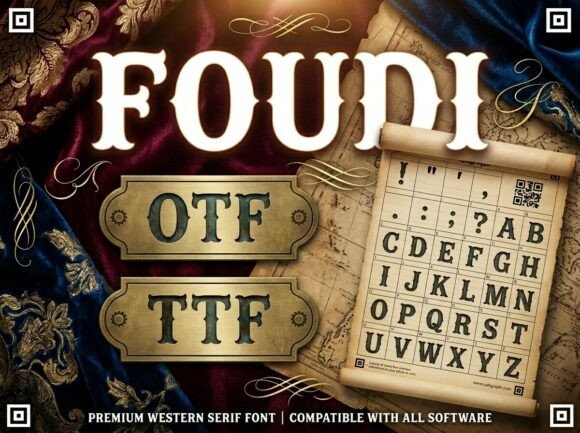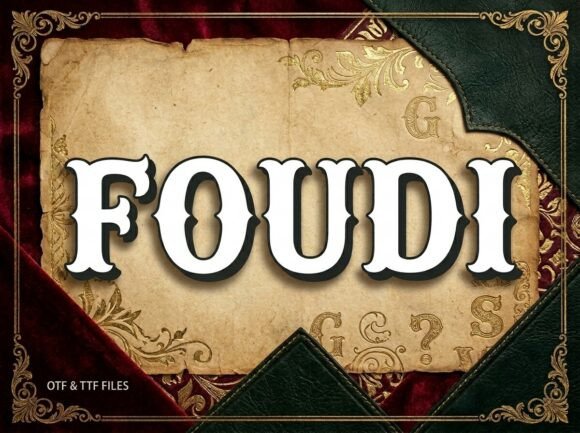
The Perfect Font to Make Your Designs Pop
Have you ever stared at a blank design canvas, feeling the pressure to create something truly unique and eye-catching? That’s where the magic happens, and the right font can be the spark that sets your creativity ablaze. For designers who crave that extra oomph, the Foudi Font is about to become your new best friend.
This stunning decorative display font is specifically designed to be the center of attention, with unique artistic elements and a strong visual personality that’s sure to turn heads. Whether you’re working on bold headlines, artistic logos, or creative packaging, the Foudi Font is the perfect addition to your design arsenal. Its versatility and professional finish make it a valuable asset for any designer looking to elevate their work and stand out from the crowd.
Foudi Font Key Features
- Font Family: Foudi Font is a typeface that comes in multiple weights, including Thin, Light, Regular, Medium, Bold, and Black.
- Character Count: Foudi Font has a large character set, including Latin, Cyrillic, and Greek alphabets, as well as various punctuation and symbol glyphs.
- Unique Characteristics: Foudi Font features a unique blend of modern and traditional design elements, with a distinctive flair and elegance that sets it apart from other typefaces.
Foudi Font Review
Overall, I think Foudi Font is a great addition to any designer’s toolkit. Here’s what I like and dislike about it:
- Unique Character Set: Foudi Font offers a distinct and modern character set that can add a touch of sophistication to any design.
- Highly Customizable: The font is fully editable, allowing you to adjust weights, styles, and even create custom fonts.
- Steep Learning Curve: Mastering Foudi Font requires a significant amount of time and practice, especially for beginners.
- Resource-Intensive: Editing and customizing Foudi Font can be computationally intensive, which may slow down your computer.
- Limited Pre-Made Templates: Unlike other fonts, Foudi Font doesn’t come with a wide range of pre-made templates or examples.
Foudi Font is a powerful tool for designers who want to create unique and professional-looking designs. While it has some limitations, its customization options and compatibility make it a worthwhile investment for those who are willing to put in the time to learn and master it.
Tips for Getting the Most Out of Foudi Font
Here are some tips to get the most out of the Foudi font:
- Experiment with different font sizes and styles.
- Pair the Foudi font with other fonts for a unique look.
- Use the Foudi font in creative ways, such as in headings or titles.